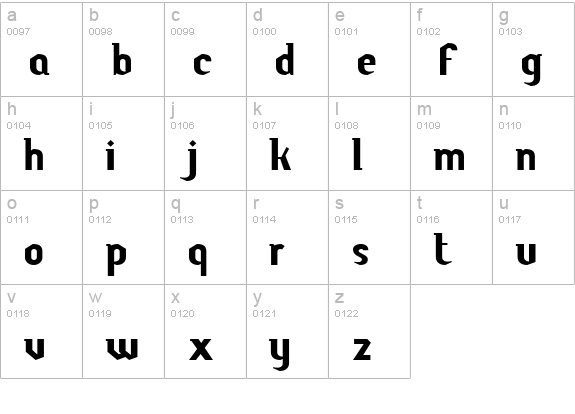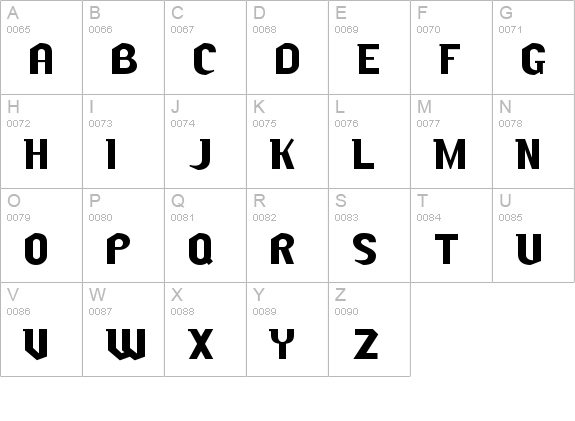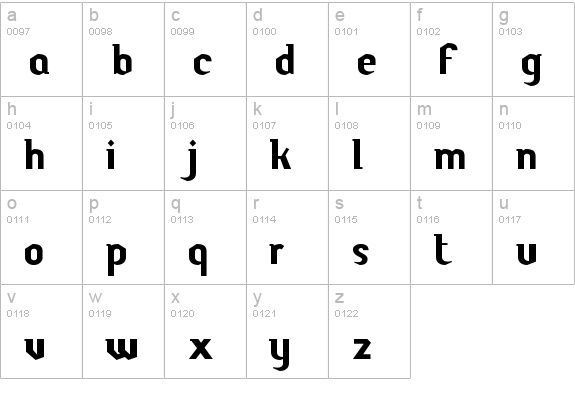
Butch Font Details
Introducing Butch font, a striking typeface that exudes a bold and modern aesthetic. With its strong lines and sharp edges, Butch is perfect for making a statement in your designs. This versatile font can be used for a variety of projects, from branding to editorial design. The best part? Butch font is completely free to download at FontsMarket.com, making it accessible to all designers looking to add a touch of edge to their work. Don't miss out on this unique and eye-catching font - download Butch today and elevate your design projects to the next level!